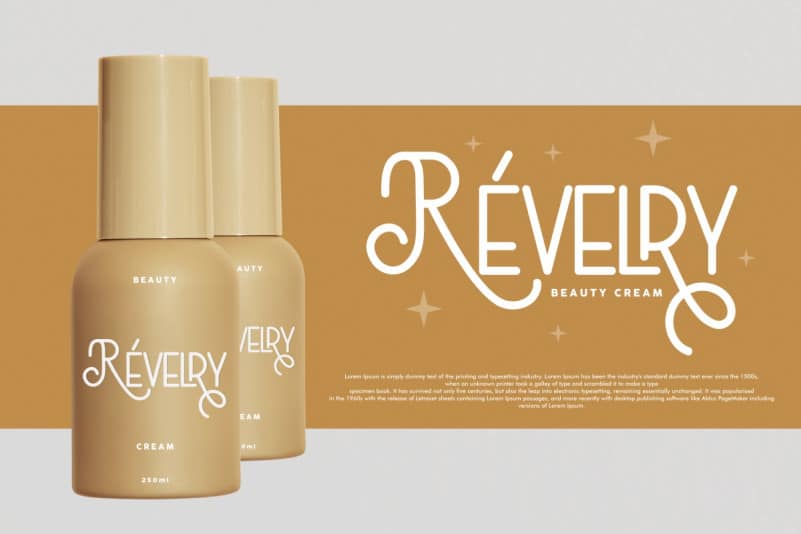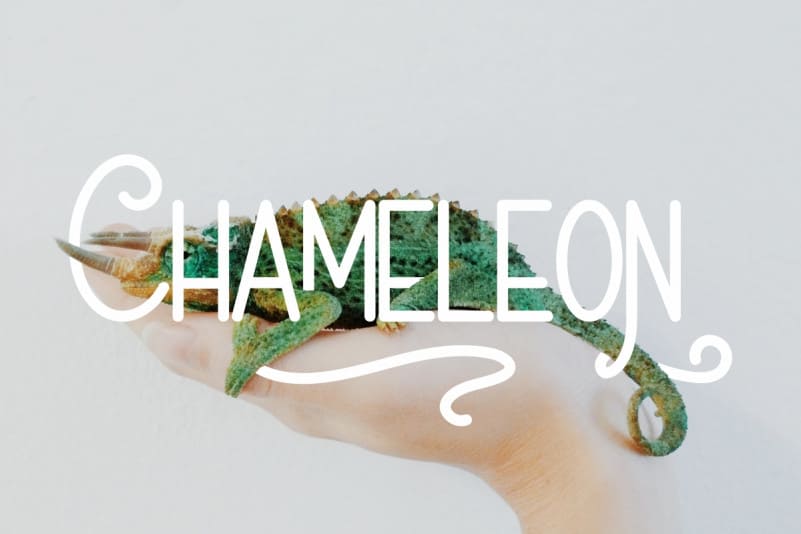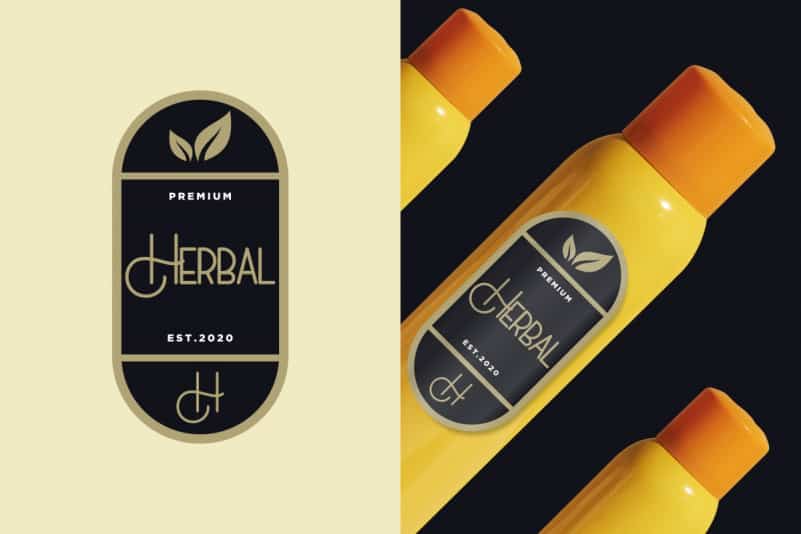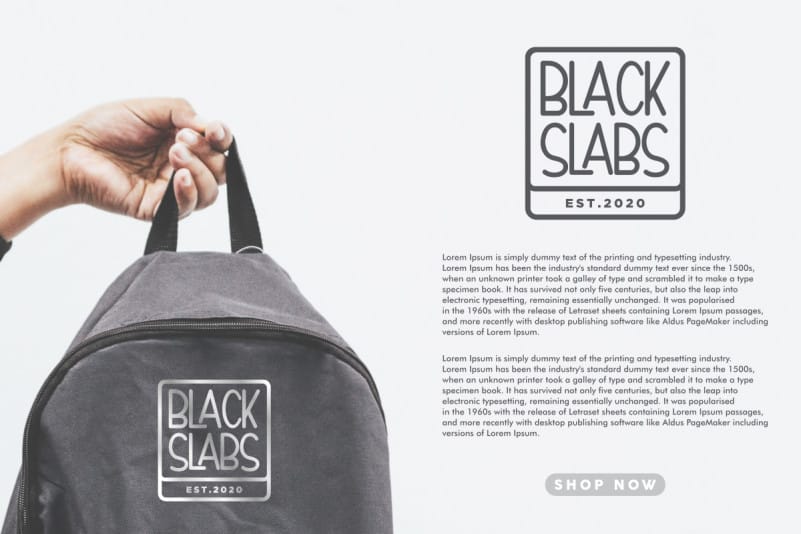
Velatus Sans Serif Font
Velatus Sans Serif Font is a vintage sans display font with a sophisticated and unique style. This font is crafted carefully in every its single scratch, created to look as close to a natural handwritten script so that it can create the perfect combination on each glyph. The vintage or english old style is really inspired from victorian age, but will be perfect for todays projects.
Velatus Sans Serif Font includes full set of Uppercase and Lowercase Basic Characters, Numerals and Punctuation. Also it contains ligatures and a lot of stylistic alternates characters to perfectly make natural calligraphy look that add more beautiful and aesthetic fonts to perfect your extraordinary project. This font is perfect for modern projects, headings, logos, branding design, signatures, quotes, fashion apparel, business card, stationery, invitations and more!